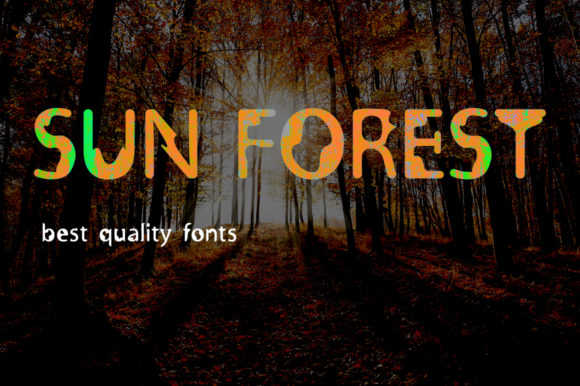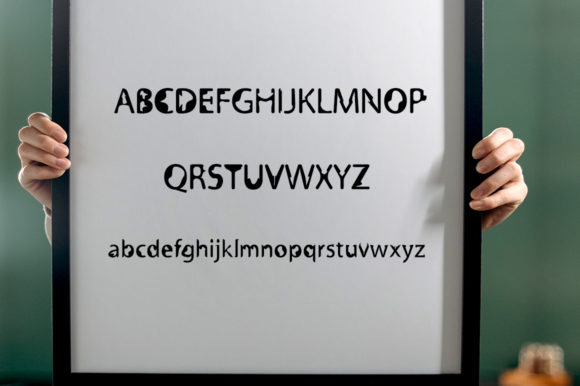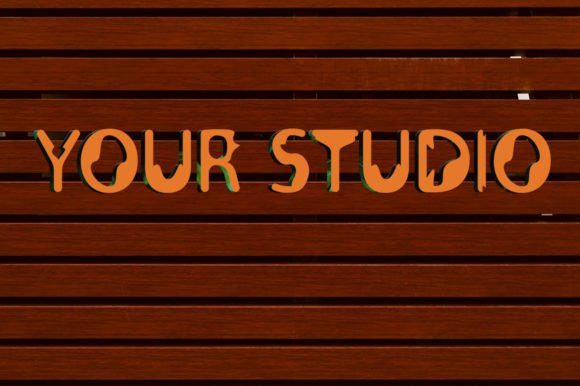
Introduction to Barben Font
Barben is a unique display font.
This soft font will look great on any design idea It will add a fun and romantic touch to any of your projects.